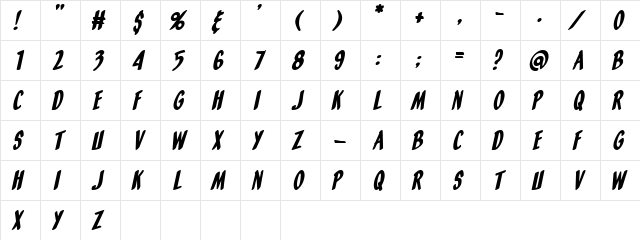
Orange Fizz Italic
Design Context for Orange Fizz Typeface
Orange Fizz is a composed and adaptable typeface that performs quietly and consistently across a wide range of design contexts. The slanted form adds forward momentum and visual energy.
Pro Tip: Use Orange Fizz for emphasis, pull quotes, and subheadings where its slanted energy can add rhythm to the layout.